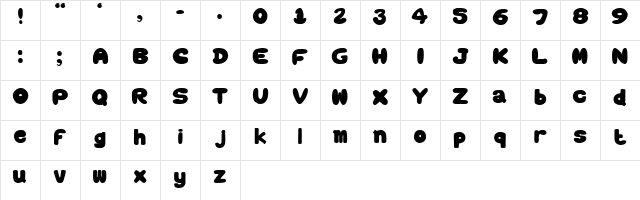
BABY SOFT Regular
Designer: JupiterImages
Design Context for BABY SOFT
BABY SOFT is a composed and adaptable typeface that performs quietly and consistently across a wide range of design contexts.